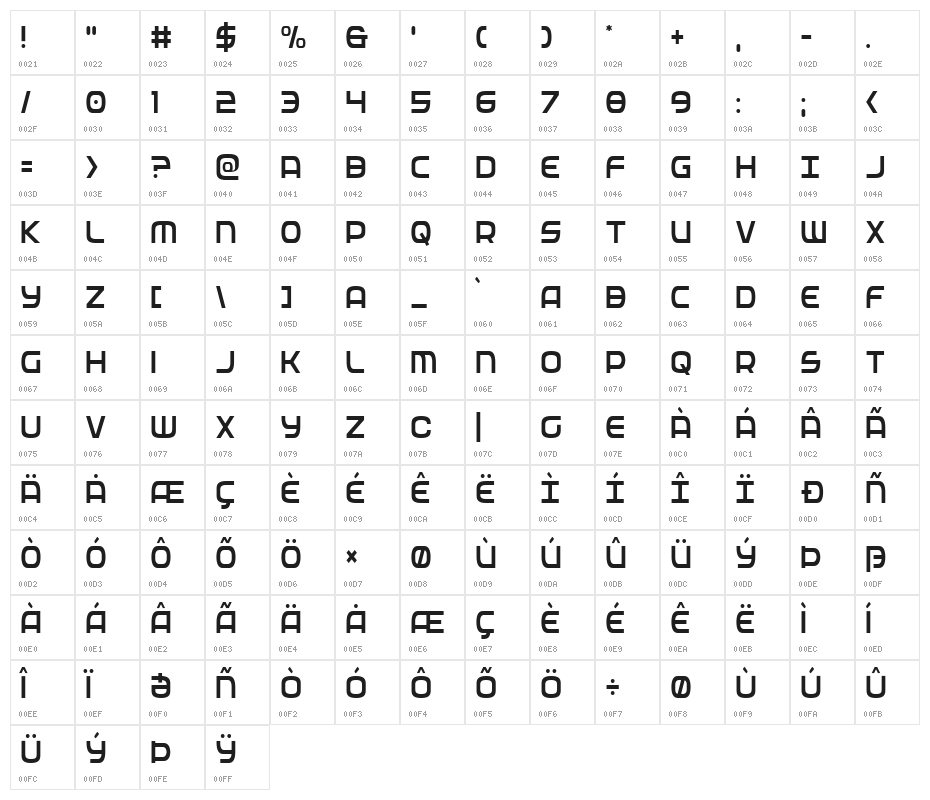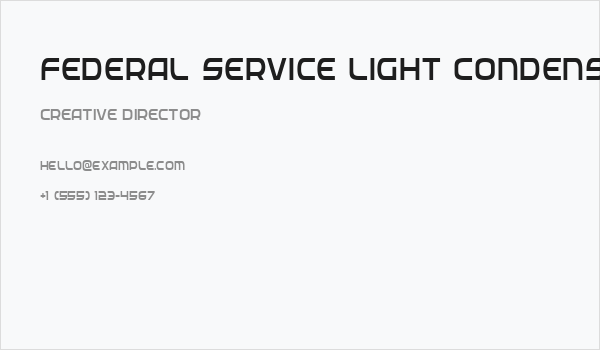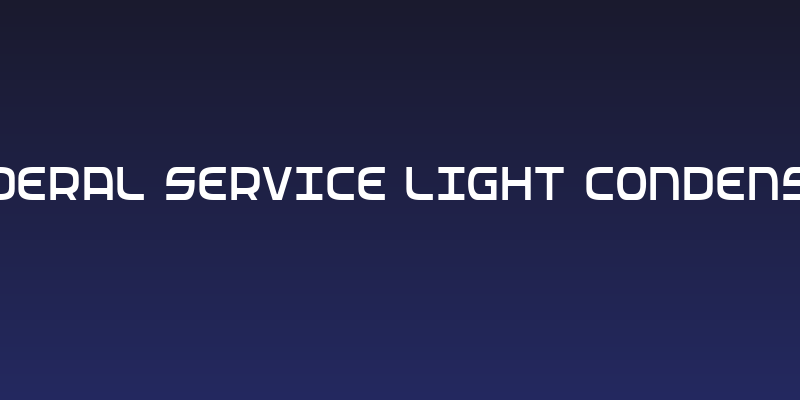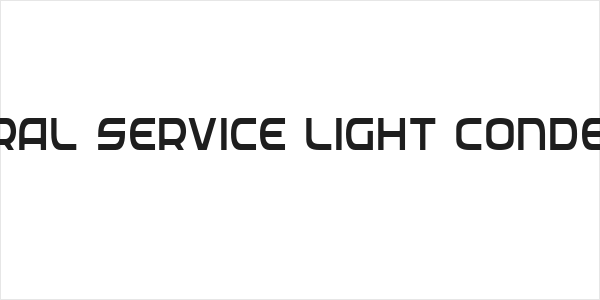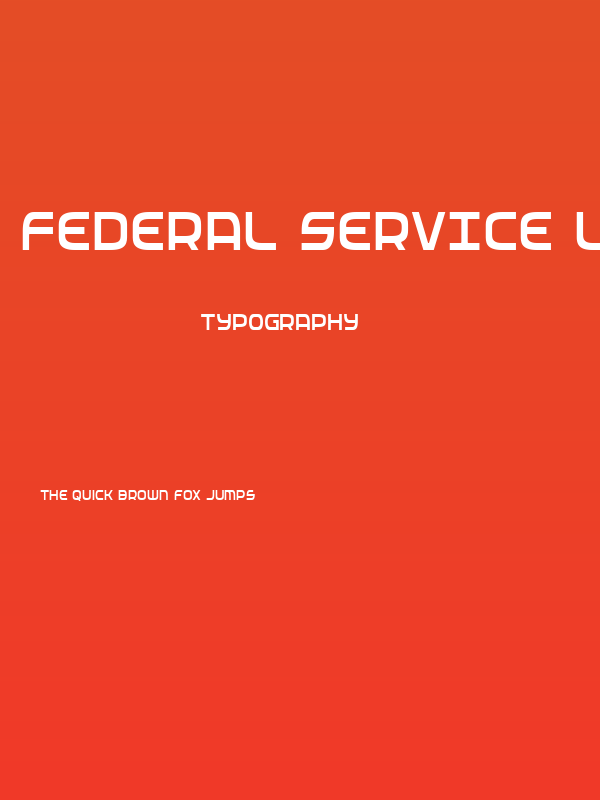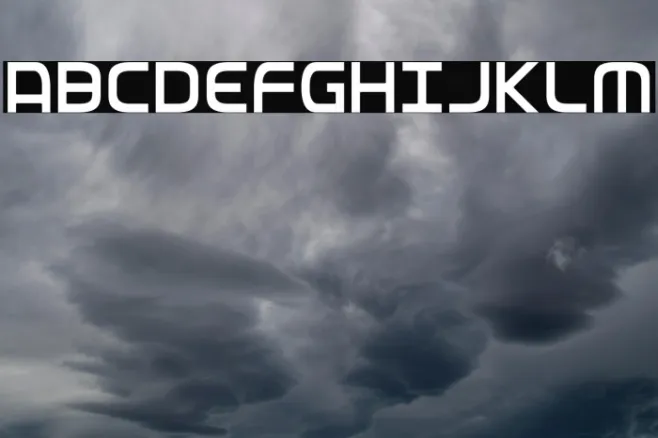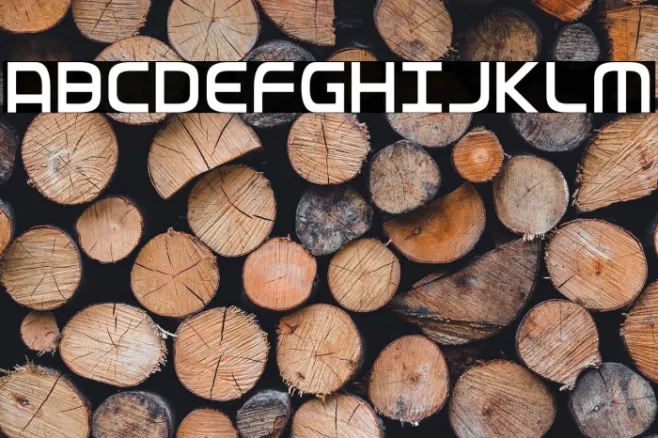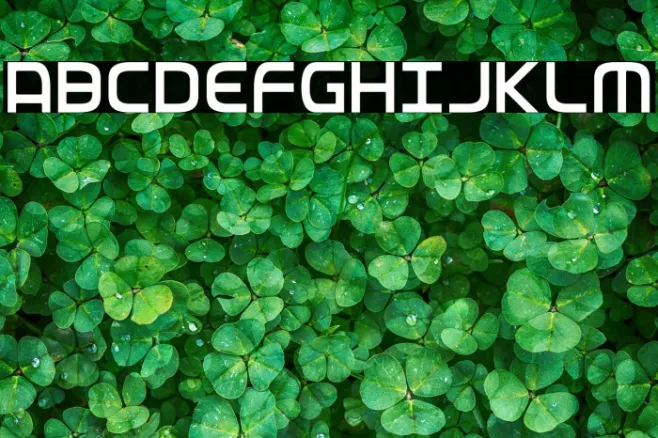
Federal Service Light Condensed Font
Federal Service Light Condensed Description
This font features a clean, geometric design with a modern aesthetic. The characters are uniformly structured, offering a sleek and professional appearance. Its condensed form allows for efficient use of space, making it ideal for settings where clarity and readability are paramount. The strokes are consistent in thickness, providing a balanced and harmonious look. The font's simplicity and precision make it versatile for various applications, from digital interfaces to print media.
| Proposed Projects | Ideal for corporate branding, digital interfaces, signage, and editorial design. |